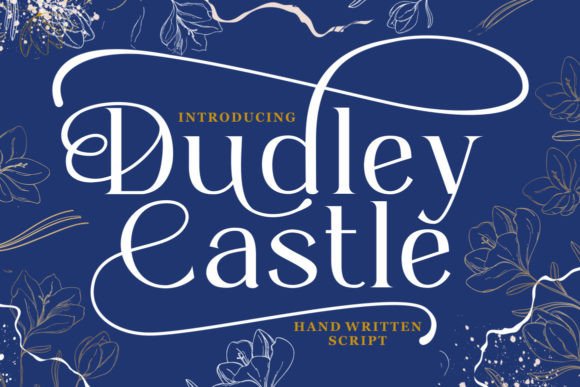
Dudley Castle Font: Elevate Your Designs with Elegance and Luxury
In the world of typography, a well-crafted font can make all the difference in elevating your designs to the next level. Introducing Dudley Castle, a beautifully designed hand-written script font that exudes elegance and luxury. With its unique and personalized feel, Dudley Castle is the perfect choice for designers looking to add a touch of sophistication to their projects.
Key Features of Dudley Castle Font
- Hand-drawn script style: Dudley Castle boasts a stunning hand-drawn script style that captures the essence of beautiful handwriting.
- Elegant and luxurious appearance: The font’s elegant and luxurious appearance elevates the visual appeal and adds a touch of sophistication to any text it is applied to.
- Abundance of alternative characters and flourishes: Dudley Castle offers versatility and allows for creative exploration with its abundance of alternative characters and flourishes.
Design Applications for Dudley Castle Font
Dudley Castle is a versatile font that can be used in a variety of design applications, including:
- Titles and headings: Use Dudley Castle to create stunning titles and headings for magazines, newspapers, and websites.
- Branding and logos: The font’s elegant and luxurious appearance makes it perfect for creating high-end brand logos and marketing materials.
- Product names and packaging: Dudley Castle can add a touch of sophistication to product names and packaging, making your products stand out on store shelves.
- Wedding and event invitations: The font’s hand-written script style makes it perfect for creating beautiful wedding and event invitations.
The Benefits of Using Dudley Castle Font
So, why choose Dudley Castle font for your designs? Here are just a few benefits of using this stunning font:
- Unique and personalized feel: Dudley Castle’s hand-written script style gives your designs a unique and personalized feel that sets them apart from the rest.
- Elegance and luxury: The font’s elegant and luxurious appearance elevates the visual appeal and adds a touch of sophistication to any text it is applied to.
- Versatility: With its abundance of alternative characters and flourishes, Dudley Castle offers versatility and allows for creative exploration.
Tips for Using Dudley Castle Font
Here are a few tips for using Dudley Castle font in your designs:
- Use it sparingly: Dudley Castle is a elegant and luxurious font, so use it sparingly to avoid overwhelming your designs.
- Experiment with different sizes and colors: The font’s versatility allows you to experiment with different sizes and colors to create a unique look.
- Pair it with other fonts: Dudley Castle can be paired with other fonts to create a stunning contrast and add visual interest to your designs.
In conclusion, Dudley Castle font is a beautifully crafted font that exudes elegance and luxury. With its hand-drawn script style, abundance of alternative characters and flourishes, and PUA encoding, Dudley Castle is the perfect choice for designers looking to elevate their designs to the next level. Whether you’re creating titles, branding, or marketing materials, Dudley Castle is sure to make a lasting impression.
Final Thoughts
If you’re looking for a font that will add a touch of sophistication and elegance to your designs, look no further than Dudley Castle. With its unique and personalized feel, Dudley Castle is sure to become a staple in your font collection.